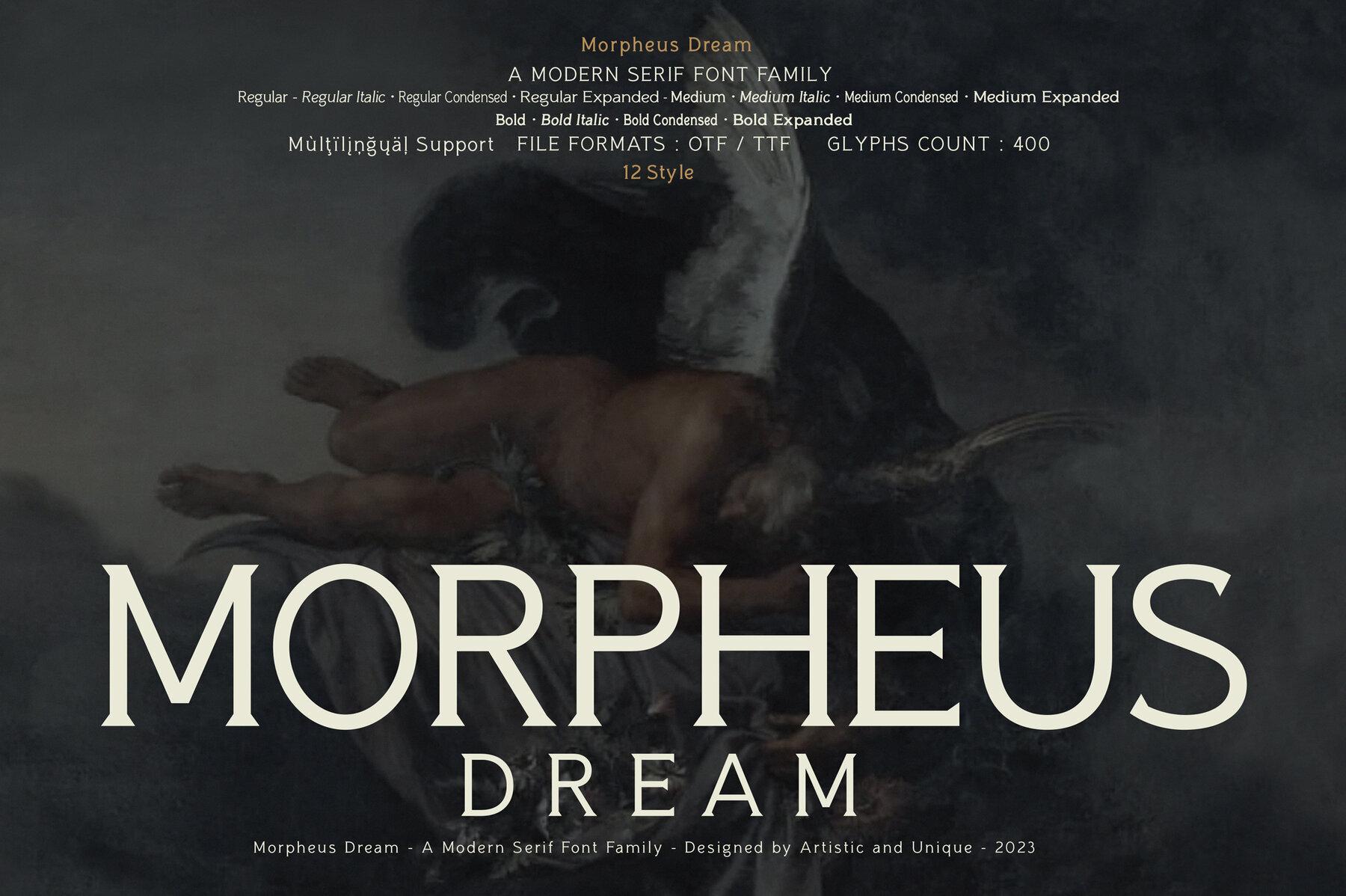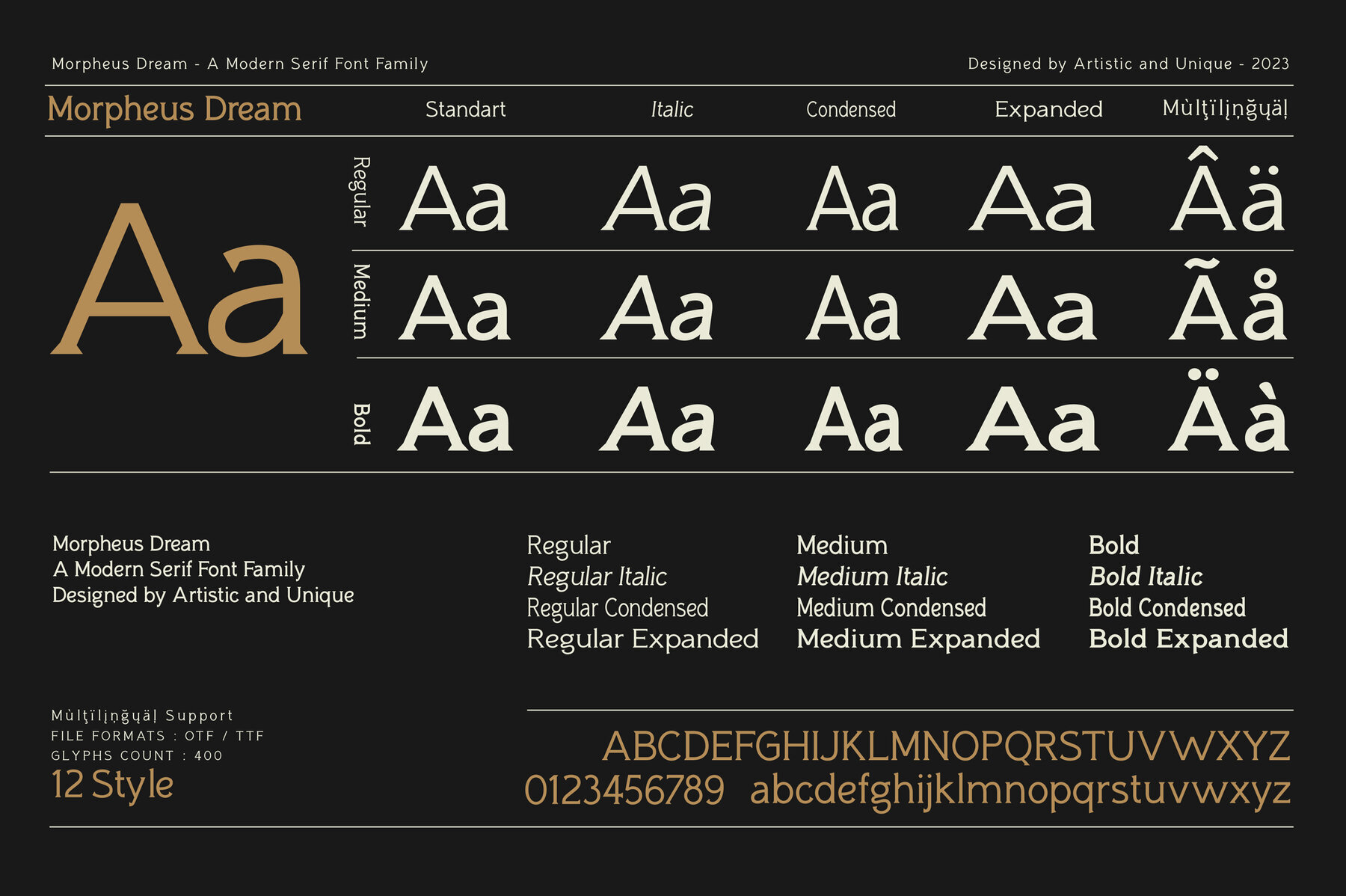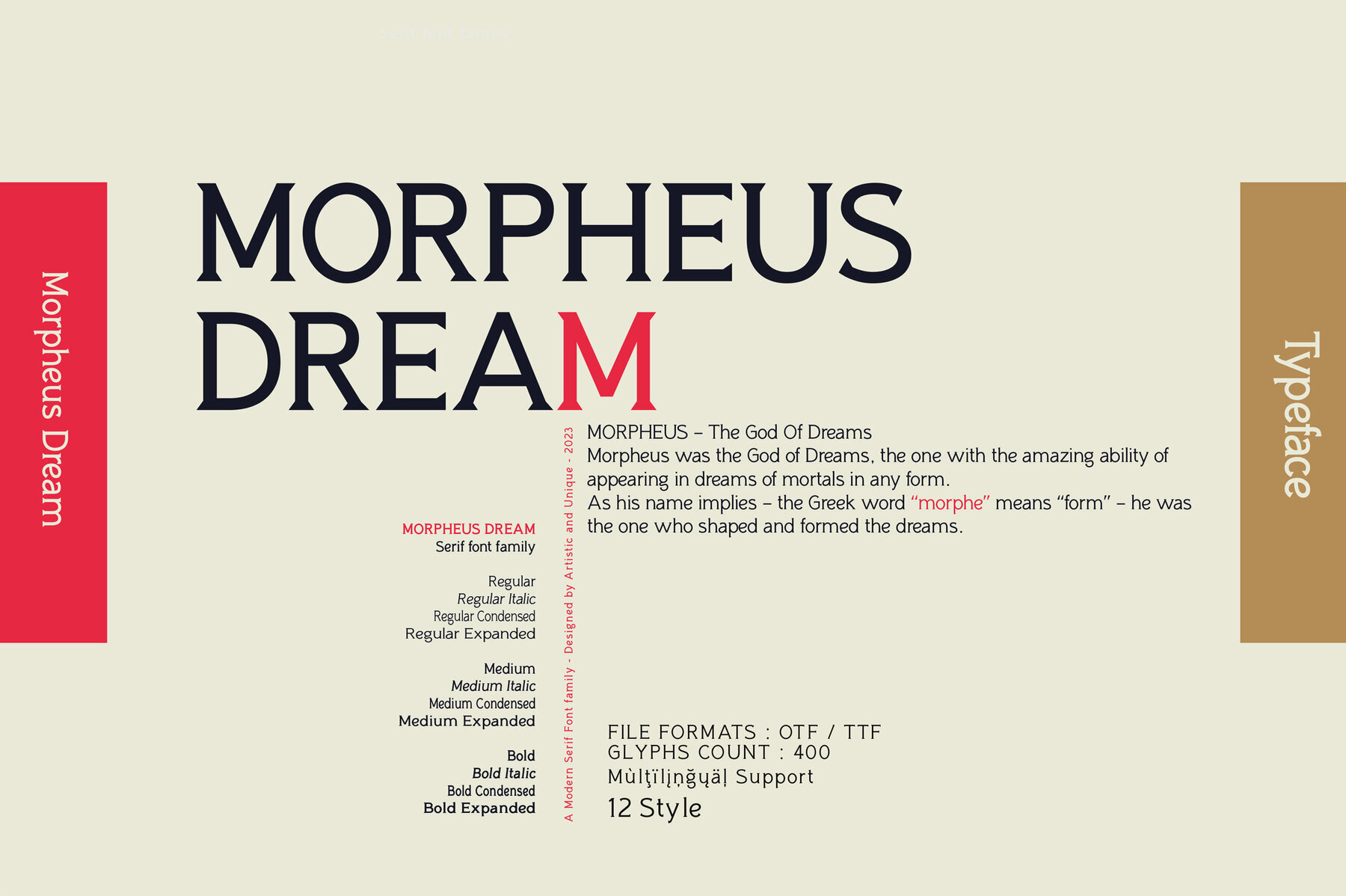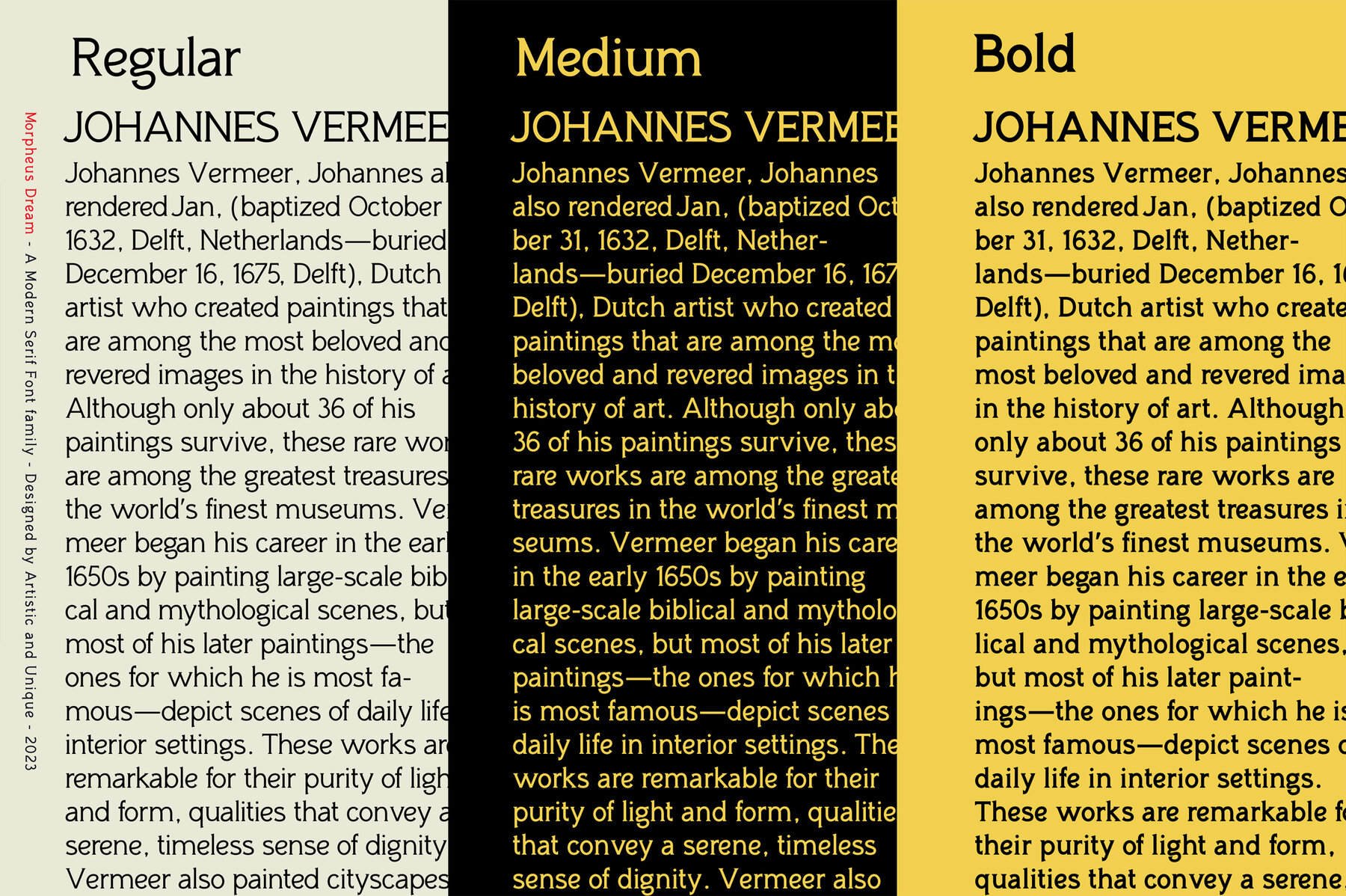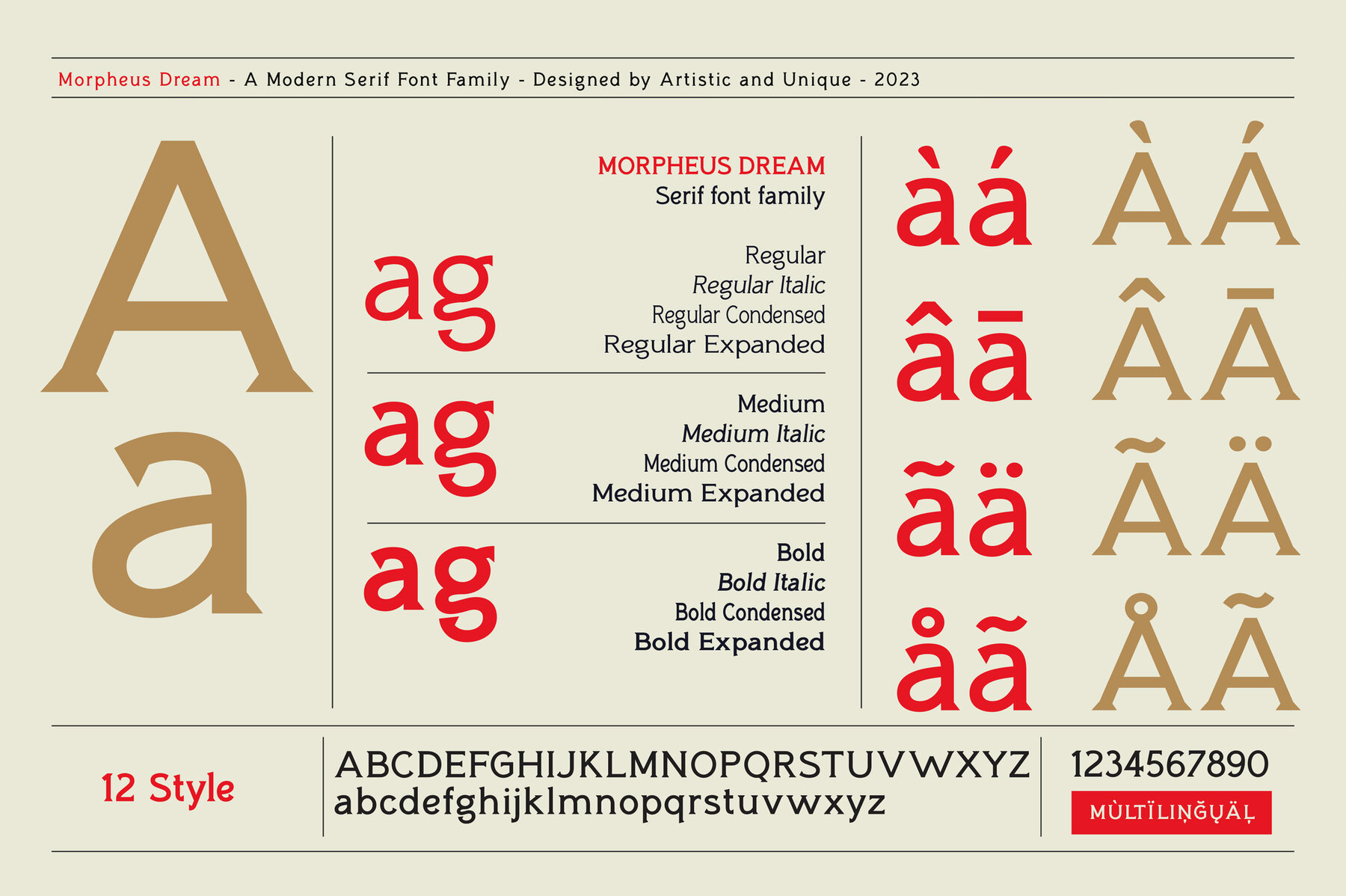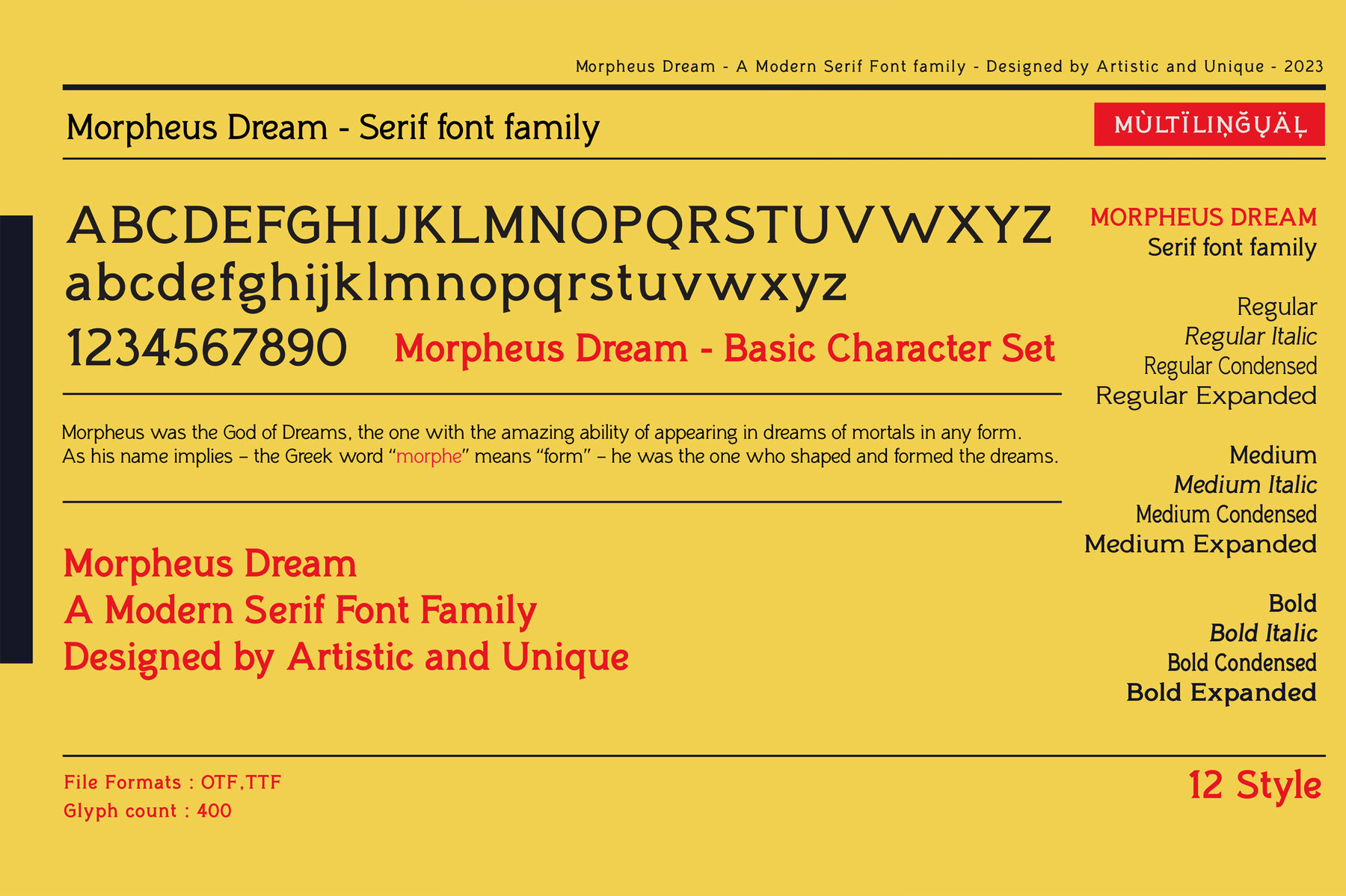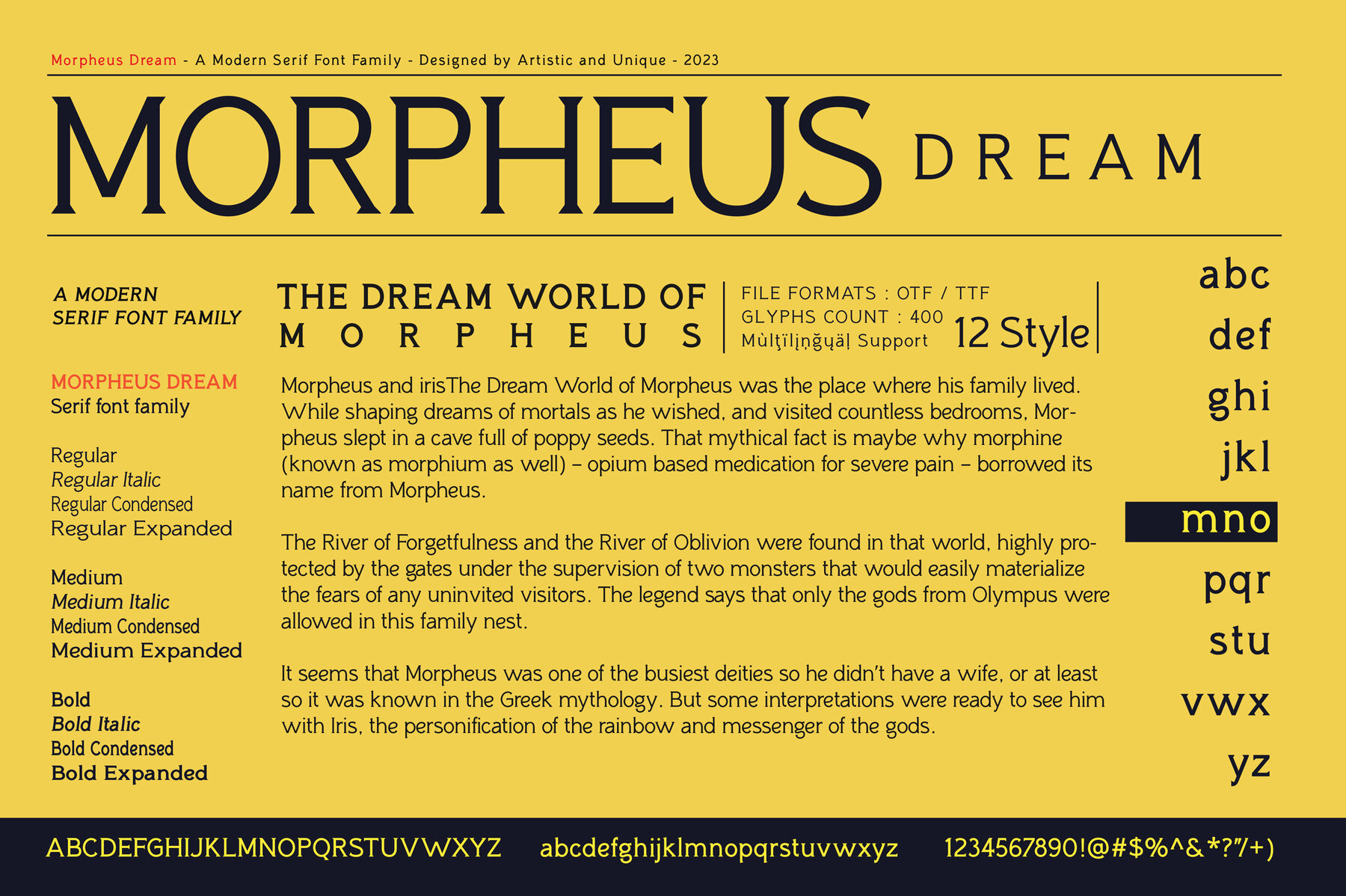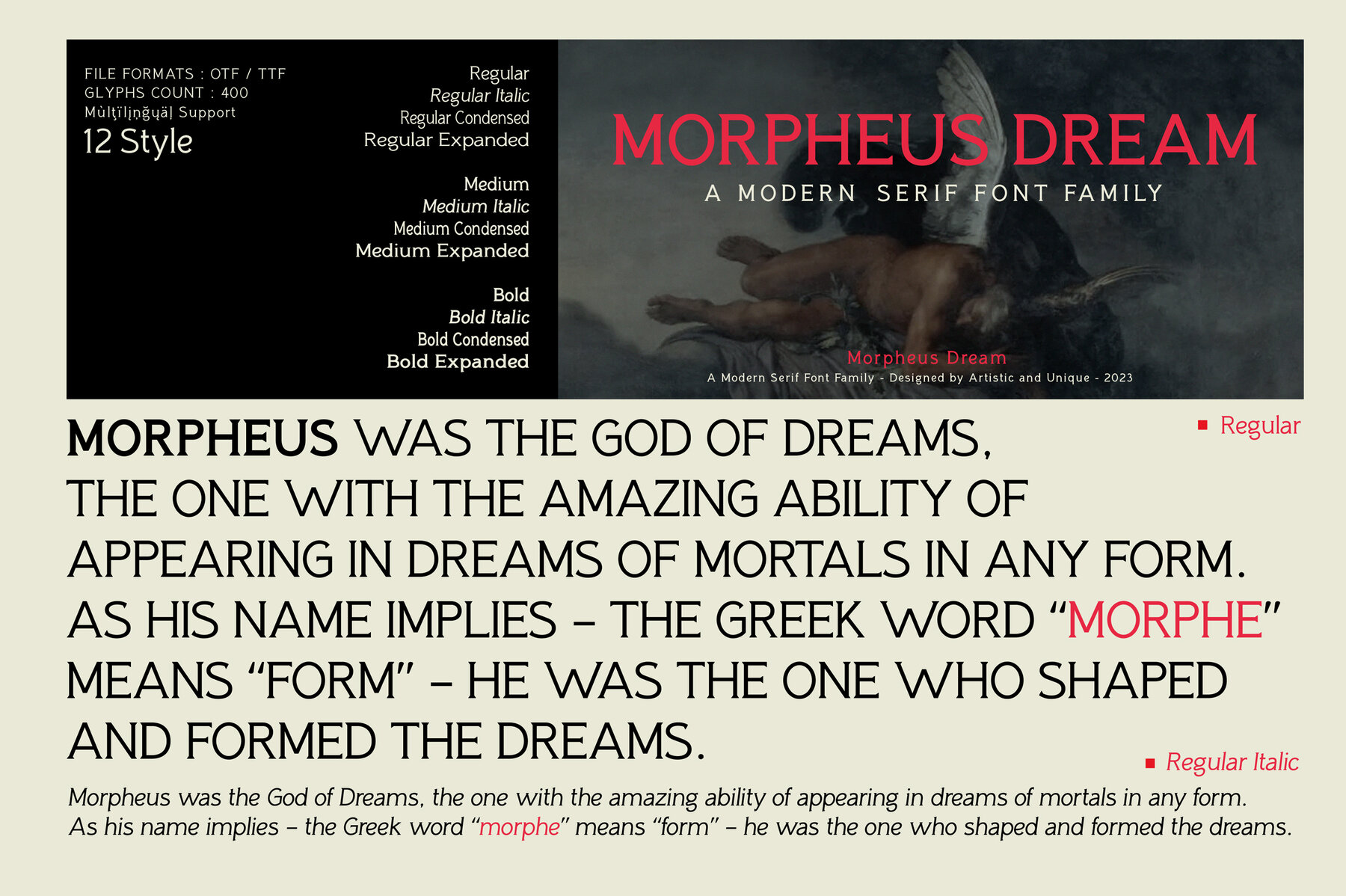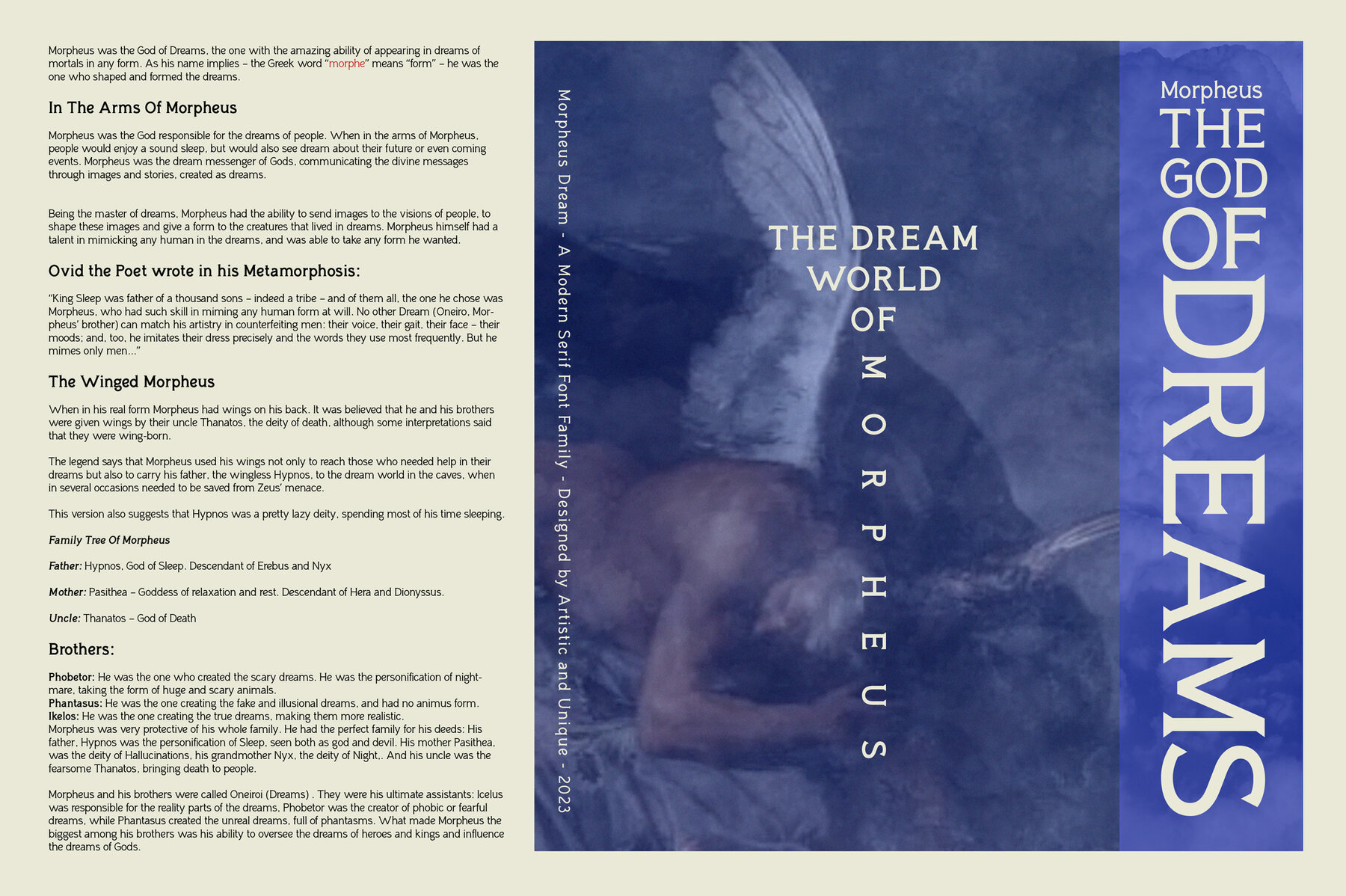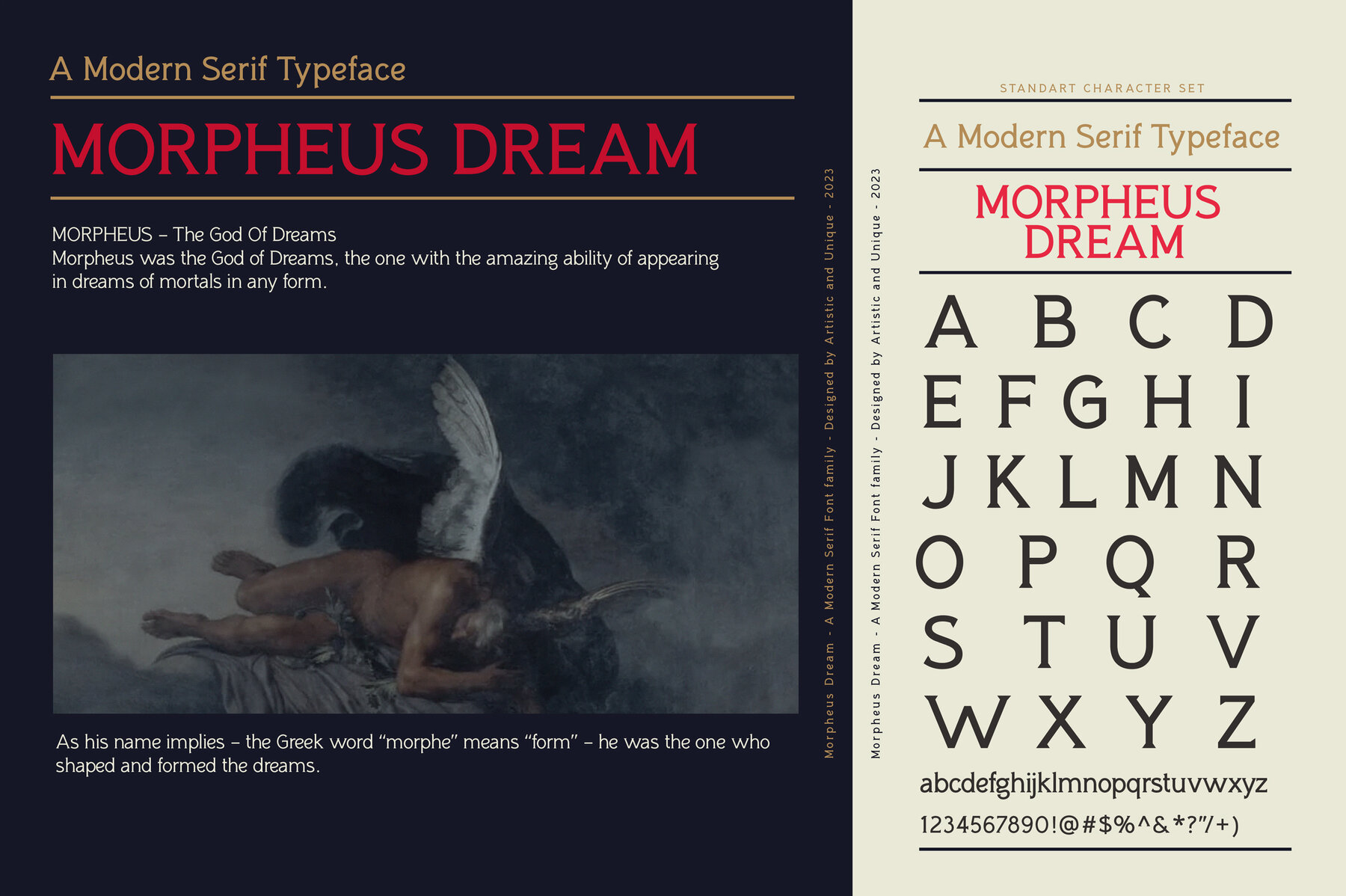
Morpheus Dream Font
Morpheus Dream is a serif font family that marries the ancient elegance of Greek mythology with contemporary design needs. With 12 varying styles and comprehensive multilingual support, this font caters to the demands of modern creatives while echoing the timeless essence of stone-carved inscriptions. Featuring a complete set of uppercase and lowercase letters, along with punctuation, symbols, numbers, and ligatures, Morpheus Dream ensures your text is both versatile and visually harmonious. Its broad applicability to an array of projects makes it an ideal choice for books, magazines, editorials, and more.Morpheus Dream: A Versatile Serif Inspired by Antiquity